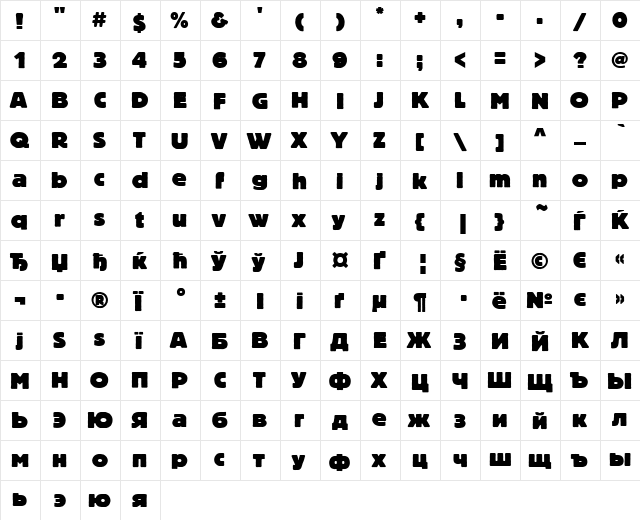
BlocHeavyC Regular
| Foundry | ParaType, Inc |
Design Context for BlocHeavyC Typeface
BlocHeavyC takes a measured approach to typography — its balanced proportions and neutral character make it a reliable workhorse for both digital and print work.